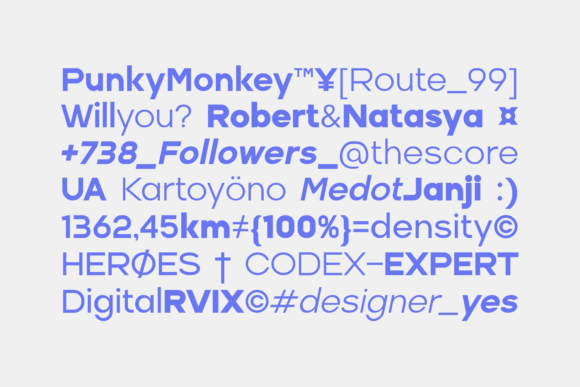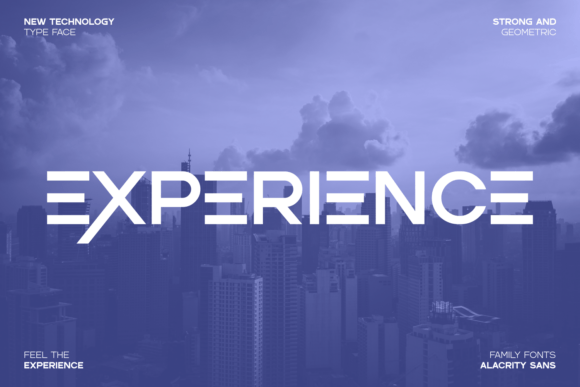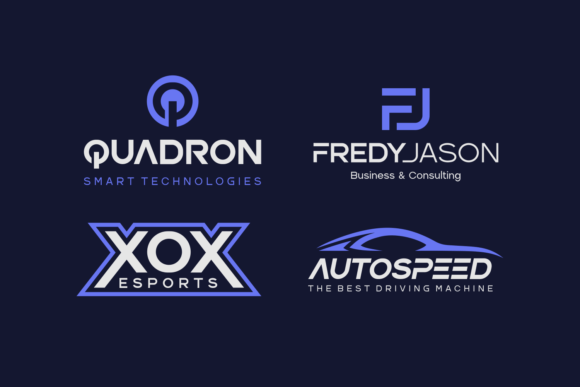
Introduction to Alacrity Sans Font
Alacrity Sans is a versatile sans serif font family with sophisticated geometric shapes.
You can use it in modern, clean, and professional designs These fonts are perfect for your various projects such as logo and brand identity, journals, business cards, web, stationary, display, sports products, technology, and more.
Key Features of Alacrity Sans Font
Why Choose Alacrity Sans Font?
Alacrity Sans Font offers exceptional quality and versatility, making it a valuable addition to your design toolkit. Whether you’re creating for personal projects or commercial use, Alacrity Sans Font delivers professional results.